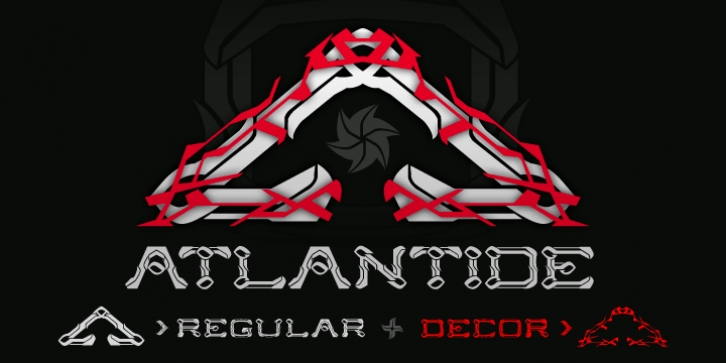
ATLANTIDE is a dingbat and display font family. This typeface has two styles and was published by Cerri Antonio.
ATLANTIDE regular and decor, is a decorative font, it works well as an identity logo type, poster and 3d works. ATLANTIDE decor, it has all the glyphs already to create vector and 3d compositions.
· ATLANTIDE REGULAR
· ATLANTIDE DECOR